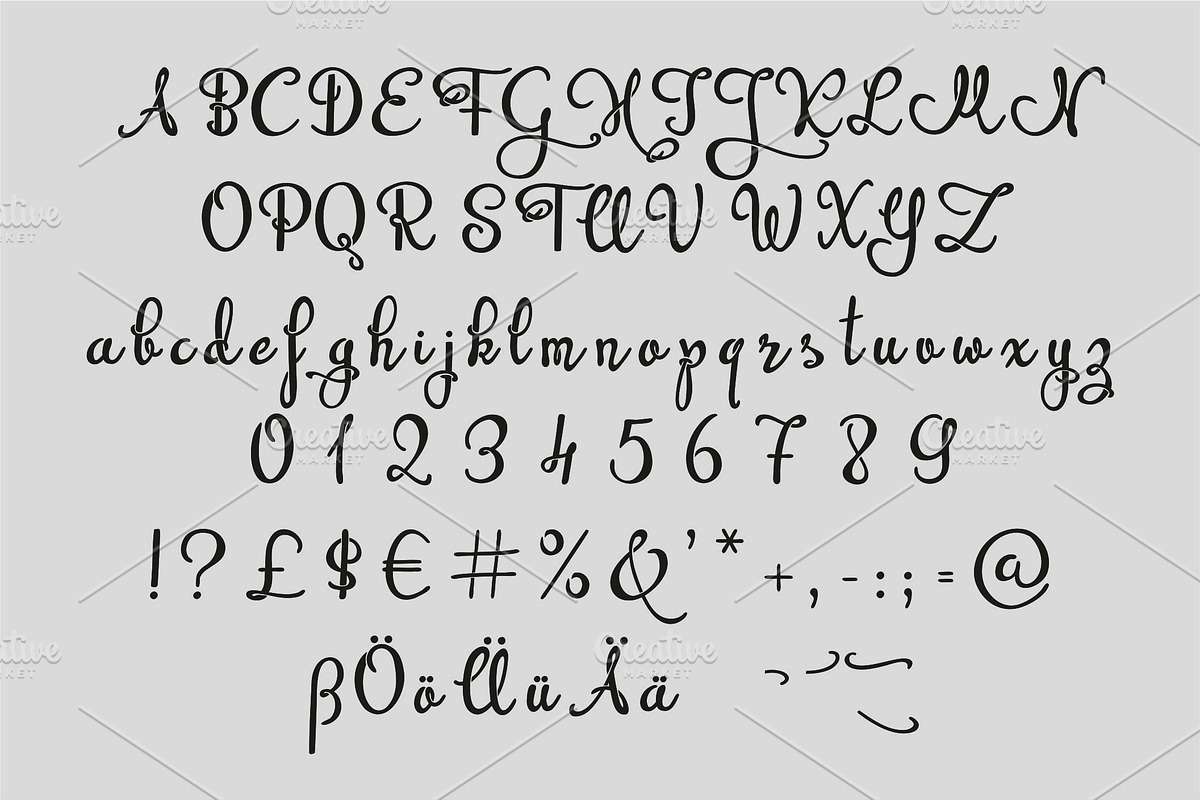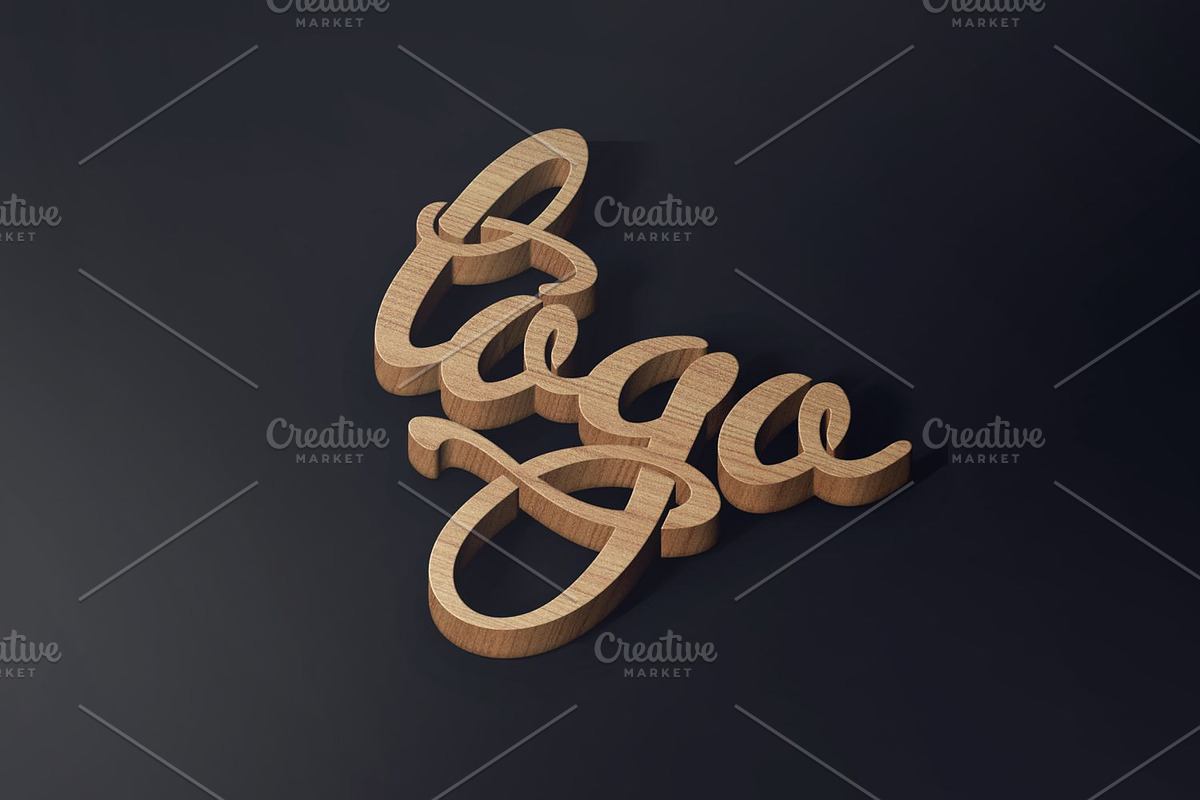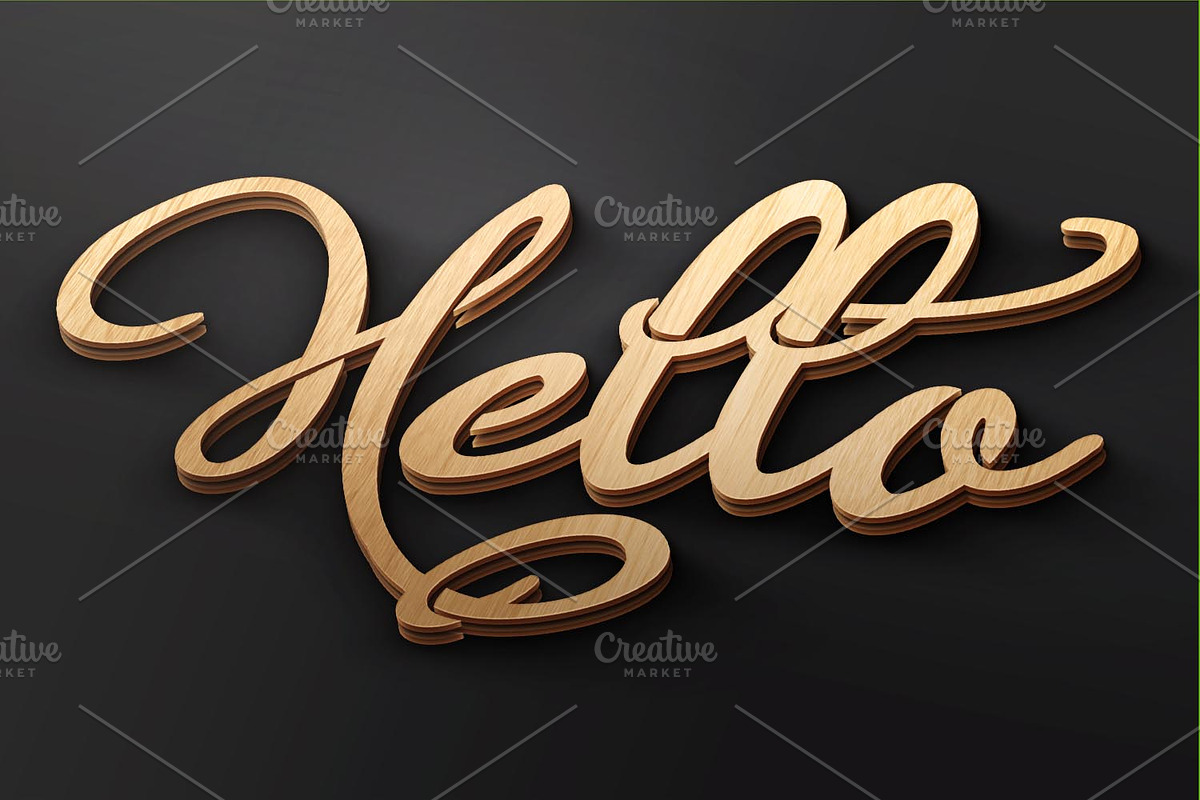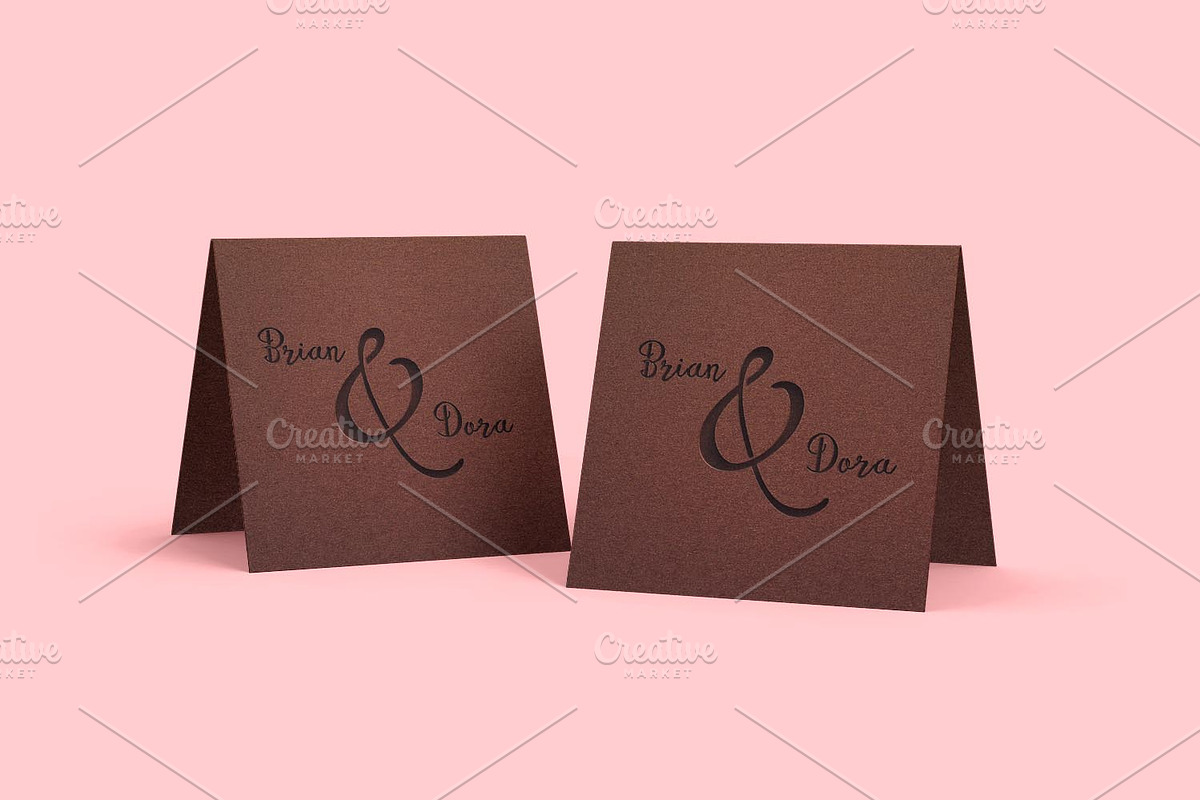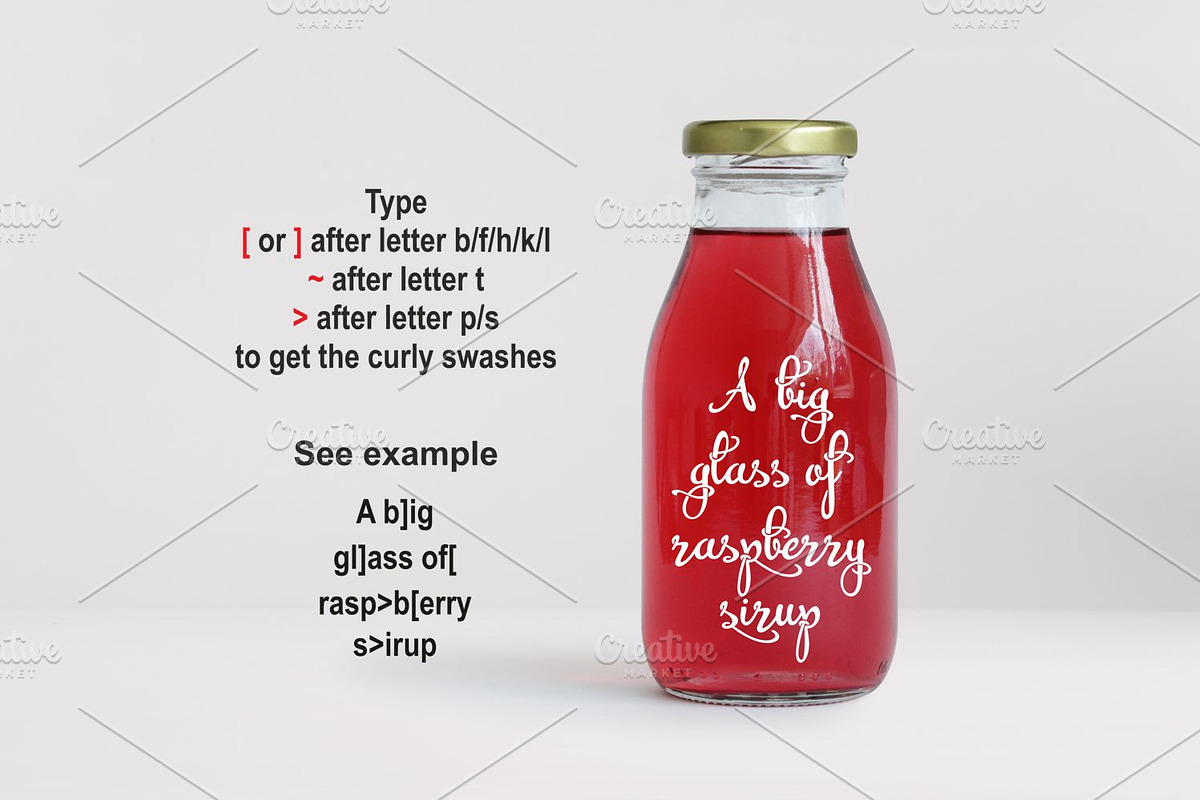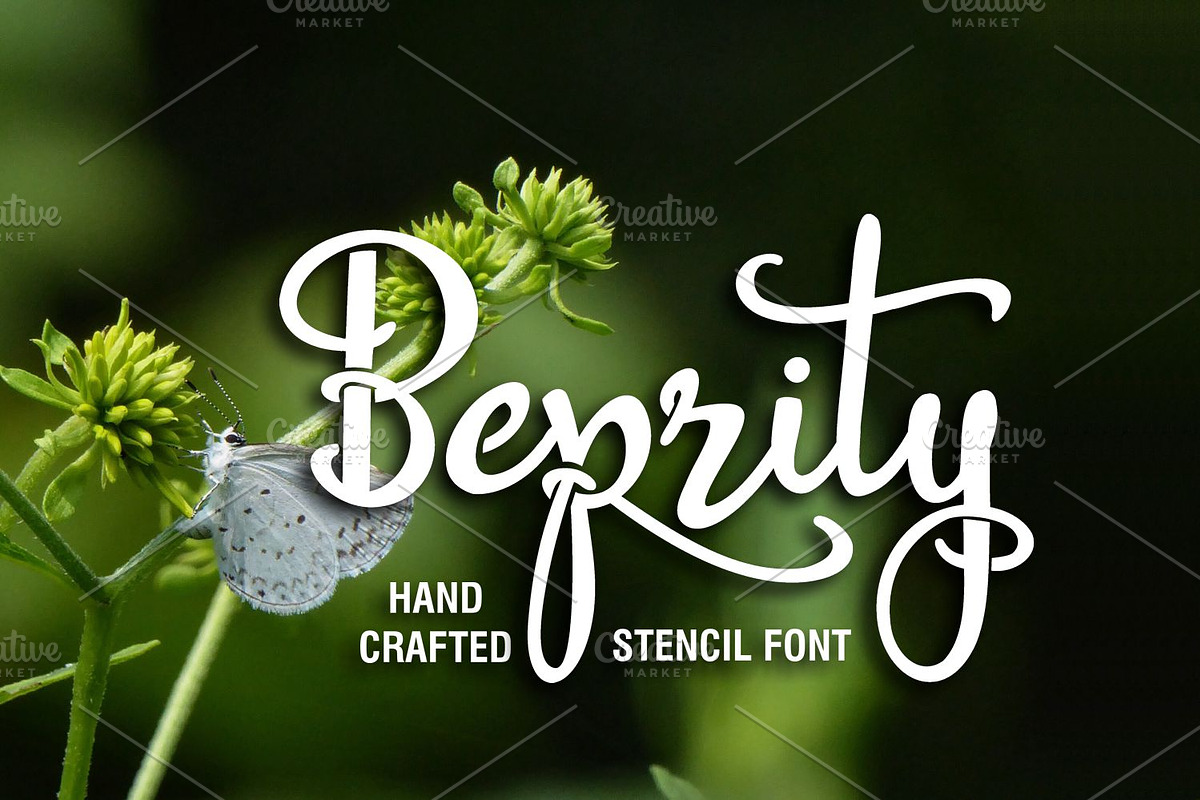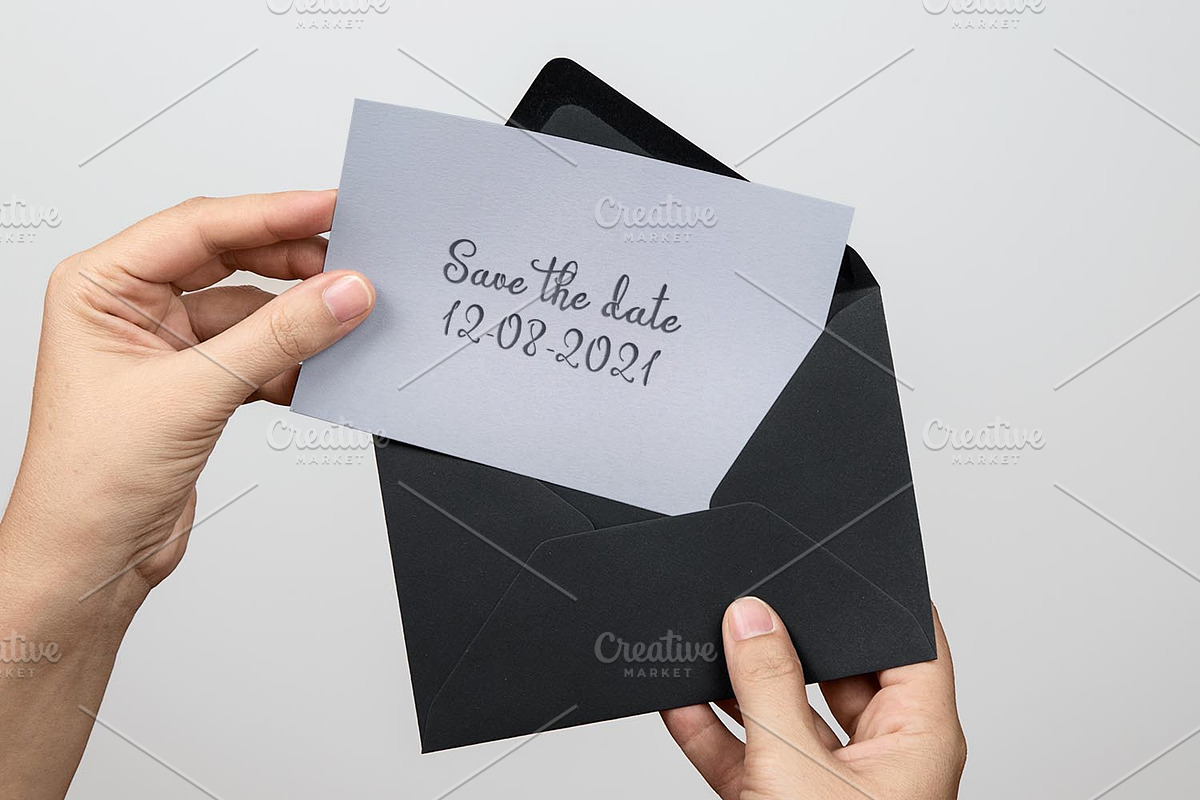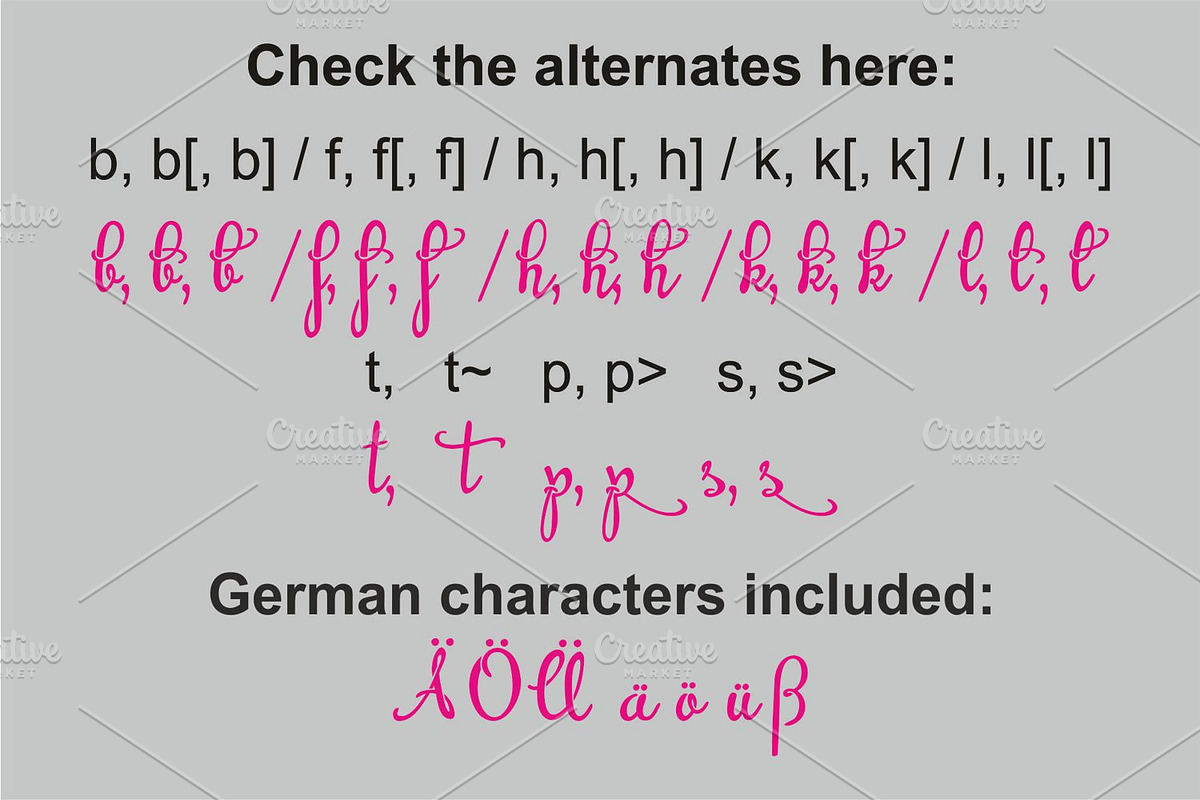
Beprity Stencil
Why Beprity Stencil is worth a look
Beprity Stencil by Digital Typeface Studio fits naturally into Branding, posters, packaging, typography.